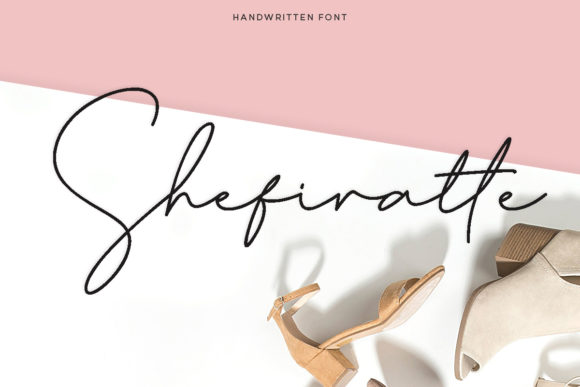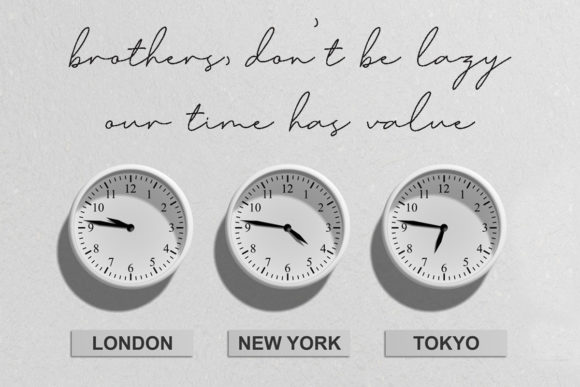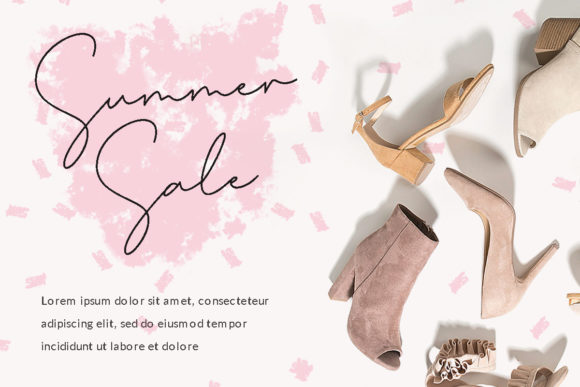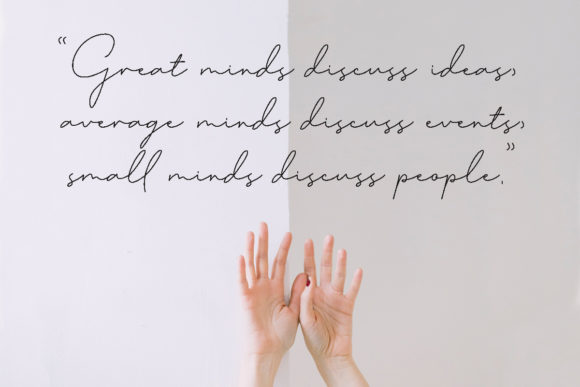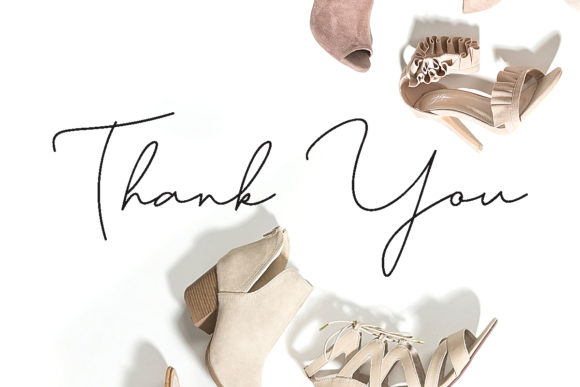
Shefiratte Font
About Shefiratte Font
Shefiratte is a magical handwritten font carefully created with a touch of elegance. This is a beautiful combination of timeless elegance and authentic calligraphy. It features an incredibly classic style, while still keeping a friendly feel. Shefiratte is the perfect font for making original and outstanding designs.